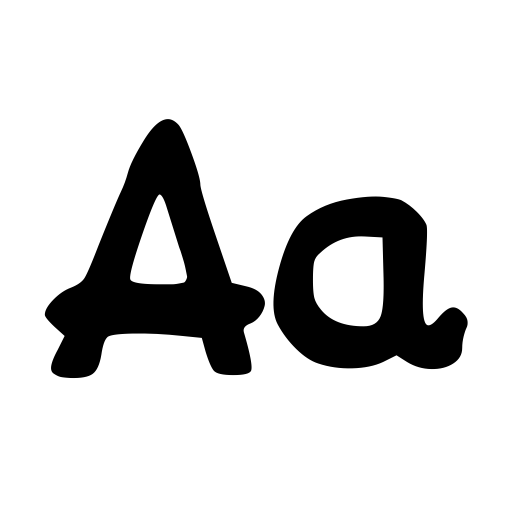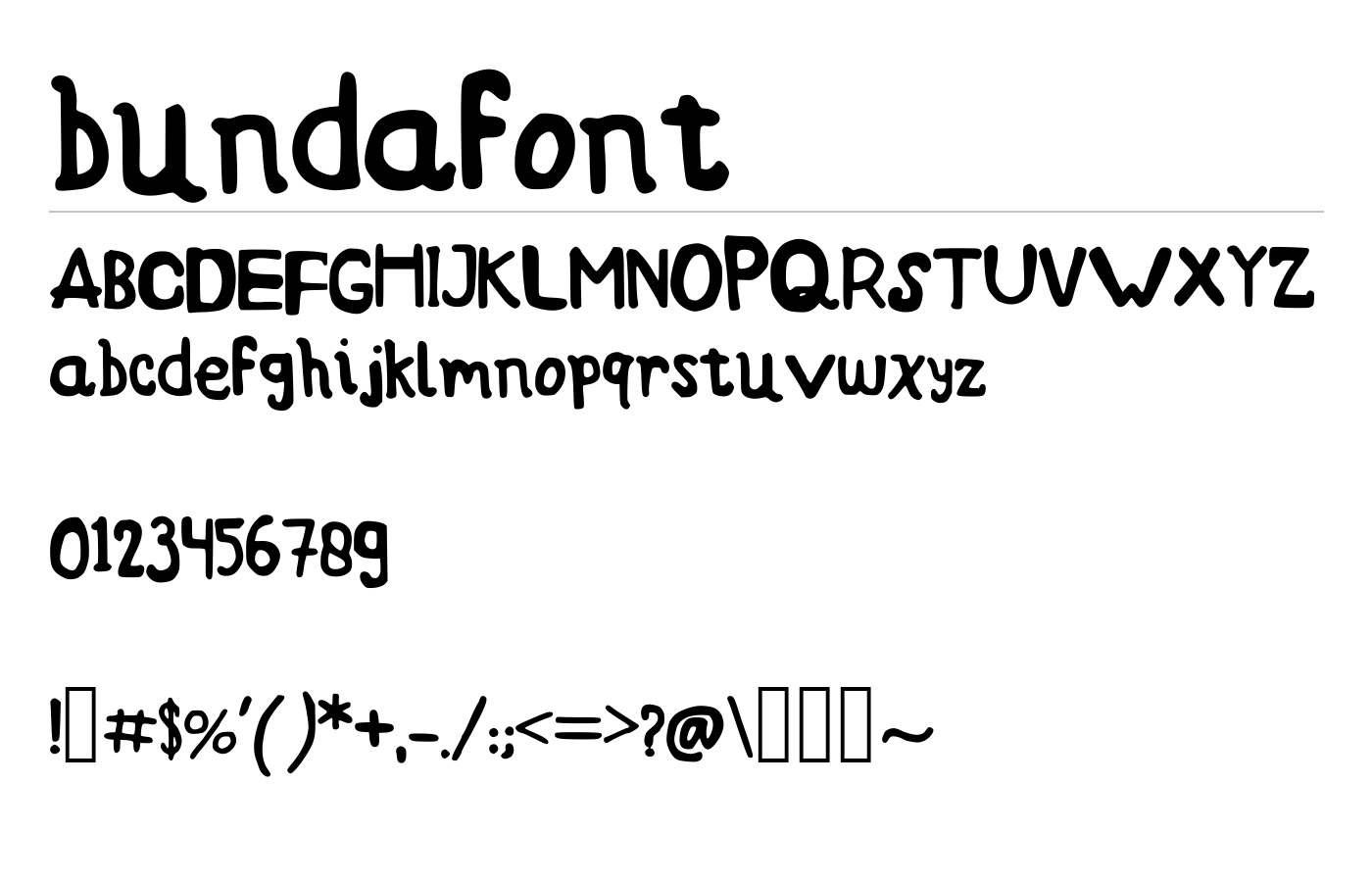
Bundafont is a playful and informal sans serif typeface with a hand-drawn feel, characterized by its uneven strokes and whimsical letter shapes. Its moderate weight and casual style make it ideal for creative projects, children’s materials, and branding that seeks a friendly, approachable personality. This font works best in logos, posters, and headlines where its unique charm can stand out and engage viewers.
bundafont